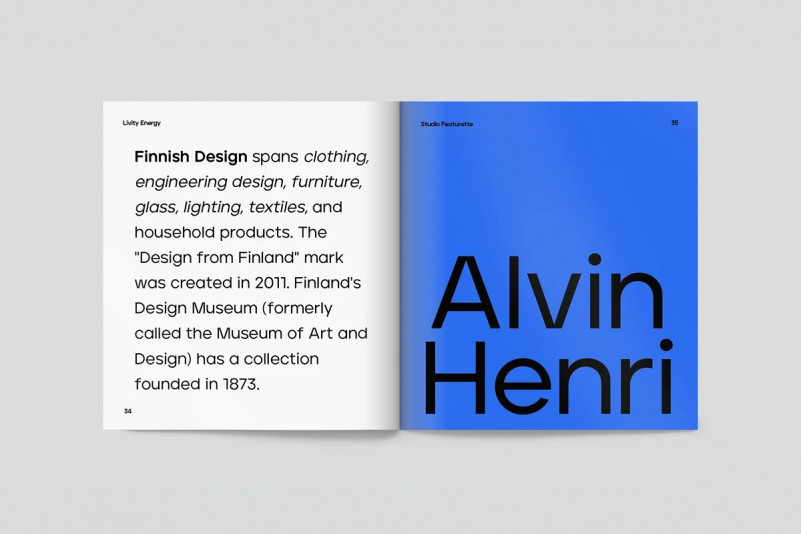
Jeko Font
How outstanding! Jeko Sans Serif Font is a contemporary geometric sans in 6 styles.
Strong geometry combines with modern, sharp cuts, resulting in sturdy font with a distinctive personality. The concept of bold repetitive elementary shapes creates a clear rhythm and makes it a highly legible family suitable for everyday use.
It comes in three weights, each one designed to fill the space without shouting, appearing refined and confident. It’s high X-height and strong capitals sustain that clear visibility across all weights and have been optically corrected for even better legibility. The matching italics slope at a lively 11º help give it a full range of expressions.
This fresh rework of the classic geometric style offers a wide range of potential applications: great for logos, branding, signage, interfaces and design.
Jeko is a re-design form of the previously available Aventa Typeface